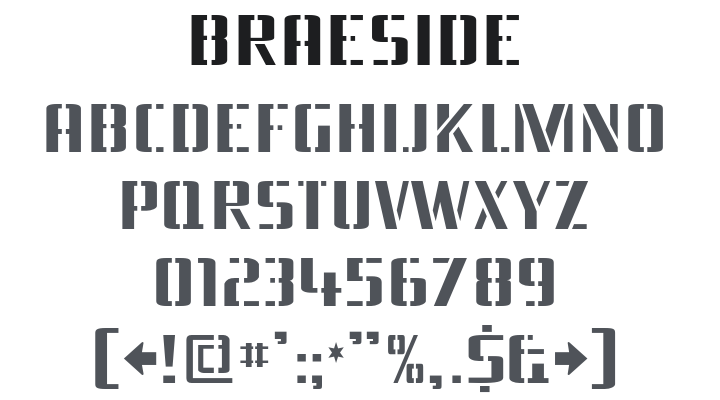
Braeside Font Family
About Braeside
Braeside is a tough, no-nonsense square stencil typeface with a rugged industrial character — letters look spray-painted through a cut metal plate, with crisp edges and firm geometry. Available in solid and outline variants. Well-suited for military-themed designs, warehouse signage aesthetics, construction branding, outdoor gear, and any headline that needs to project raw, physical authority.